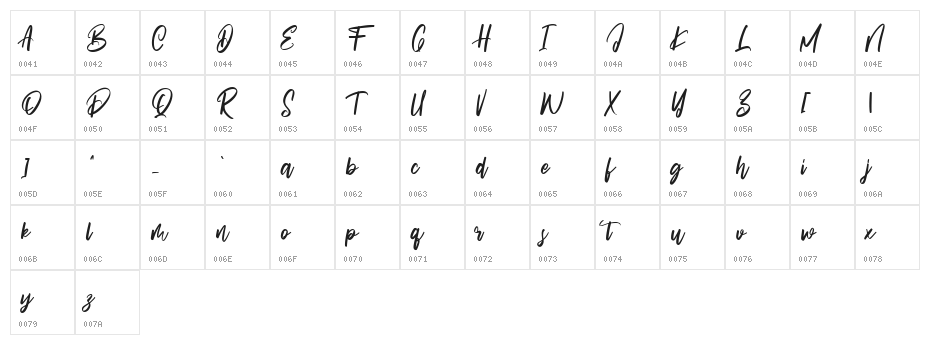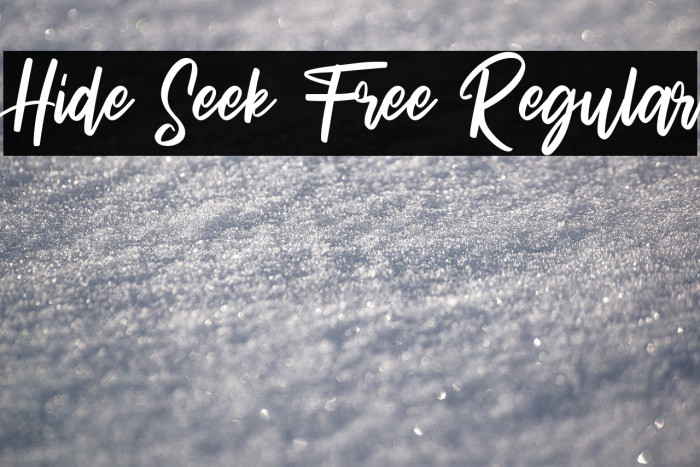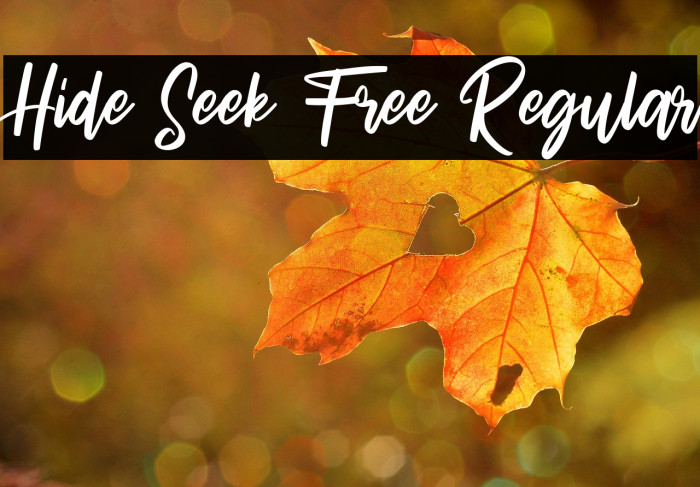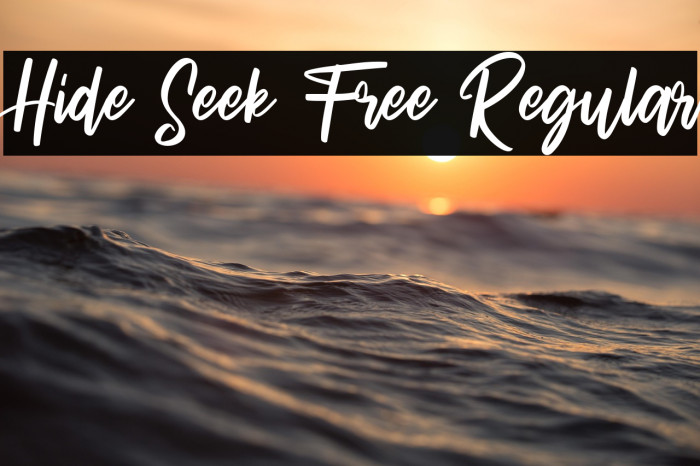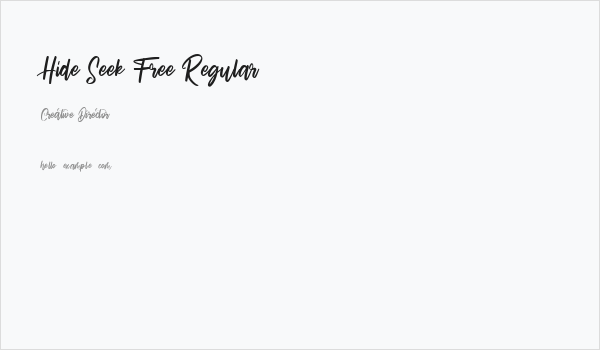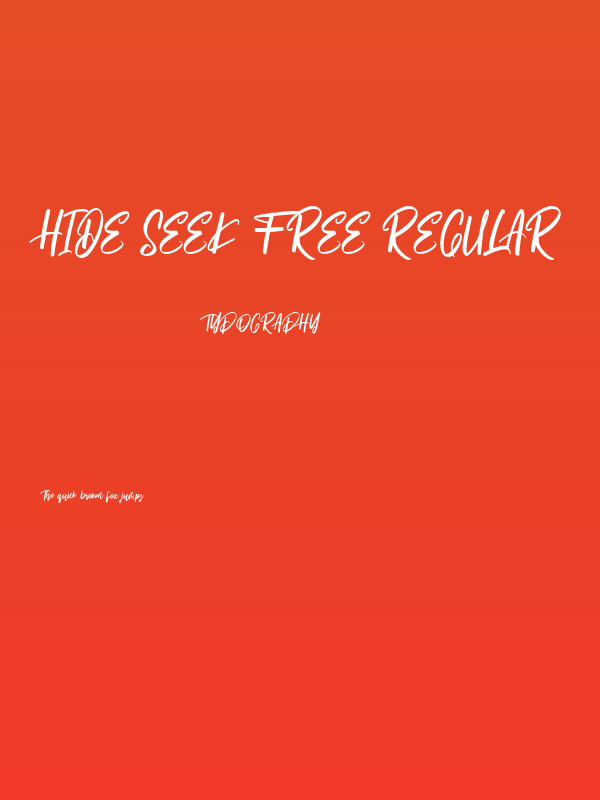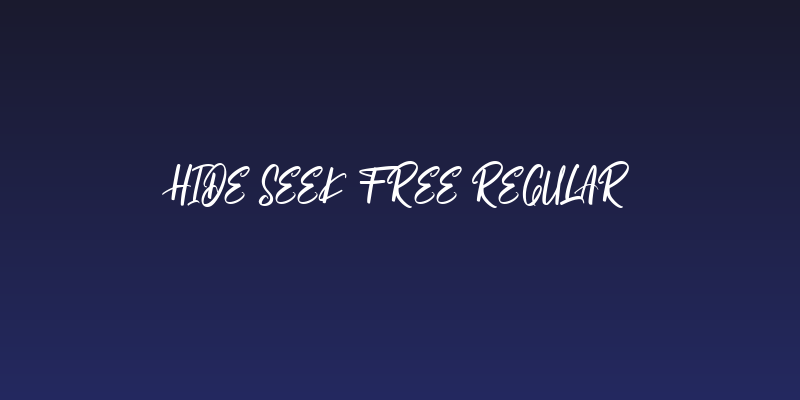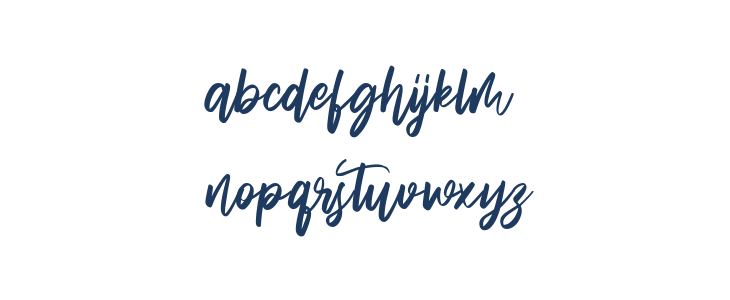
Hide Seek Free Regular Font
Hide Seek Free Regular Description
This font features a dynamic and flowing script style, characterized by its bold and expressive strokes. The letters are interconnected with smooth curves, giving it a handwritten appearance that is both elegant and casual. The uppercase letters are particularly striking, with a sense of movement and flair, while the lowercase letters maintain a consistent rhythm. The font's overall design is versatile, making it suitable for a variety of creative projects. Its unique style adds a personal touch, making it ideal for branding, invitations, and artistic designs.
Use CaseLogos, Headlines, Invitations
Proposed ProjectsIdeal for branding, invitations, artistic designs, and any project requiring a personal touch.